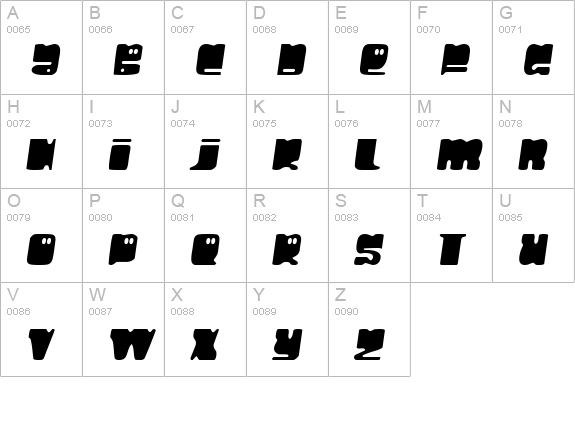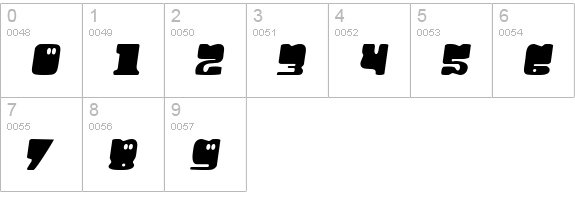
Hello Larry Font Details
Hello Larry font is a stunning display font that exudes elegance and sophistication. With its unique and intricate design, it is sure to make any project stand out. The font features beautifully crafted letterforms, with clean lines and graceful curves that captivate the eye. What sets Hello Larry font apart is not just its aesthetic appeal, but also its accessibility. This font is available for free download at FontsMarket.com, making it easily accessible to designers, artists, and anyone in need of a high-quality font for their creative endeavors. Whether you are designing a logo, creating a poster, or working on a website, Hello Larry font is a versatile choice that will elevate your design to new heights. Its bold and distinct style can add a touch of sophistication to any project, while still maintaining readability and clarity. Hello Larry font is perfect for both print and digital mediums, as it is designed with attention to detail and readability in mind. Its versatility allows it to work well in various sizes, from large headlines to small body text. So why wait? Download Hello Larry font for free at FontsMarket.com and unleash your creativity with this remarkable font. Whether you are a professional designer or an amateur enthusiast, this font will bring your ideas to life and leave a lasting impression on your audience.